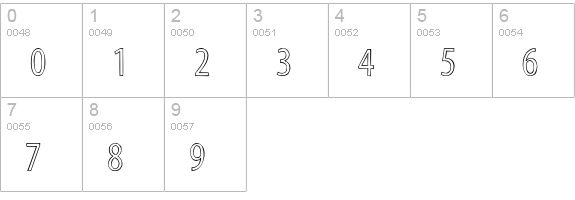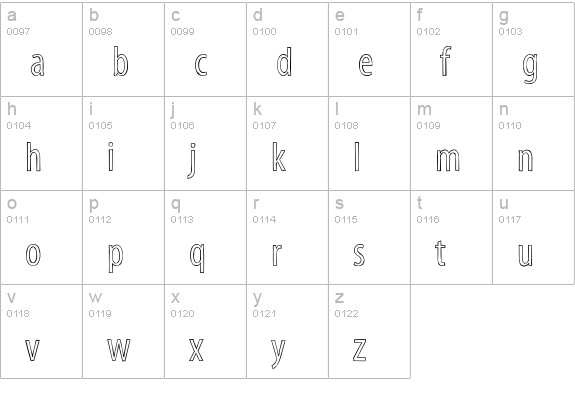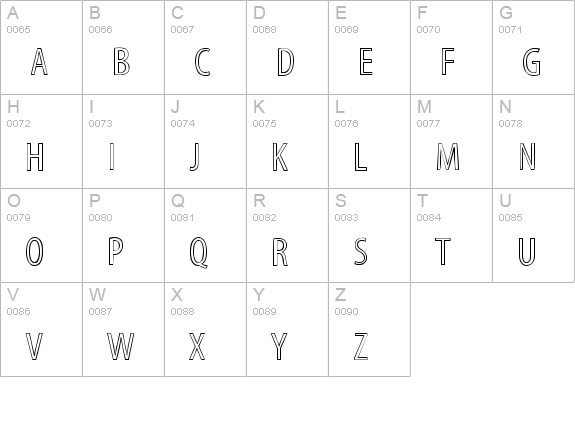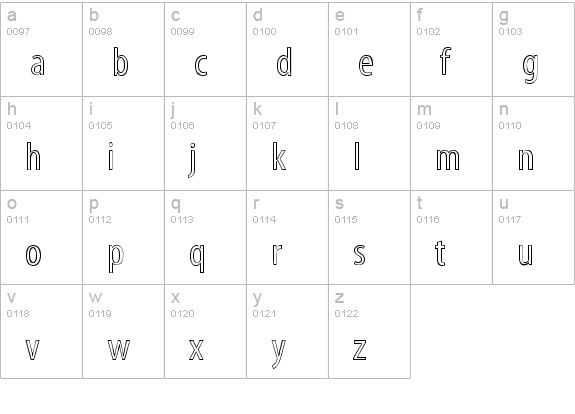
Myriad Sketch Font Details
Myriad Sketch font is a charming and whimsical typeface that exudes creativity and playfulness. With its hand-drawn appearance and unique details, this font is perfect for adding a touch of personality to your projects. The irregular lines and quirky shapes give Myriad Sketch a distinct and artistic feel, making it ideal for use in various design applications. Best of all, Myriad Sketch font is available for free download at FontsMarket.com. This means you can easily access this delightful font and incorporate it into your designs without any cost. Whether you're working on a fun poster, a creative logo, or a unique branding project, Myriad Sketch font is sure to add a touch of originality and charm. Download this free font today and let your imagination run wild with endless creative possibilities!